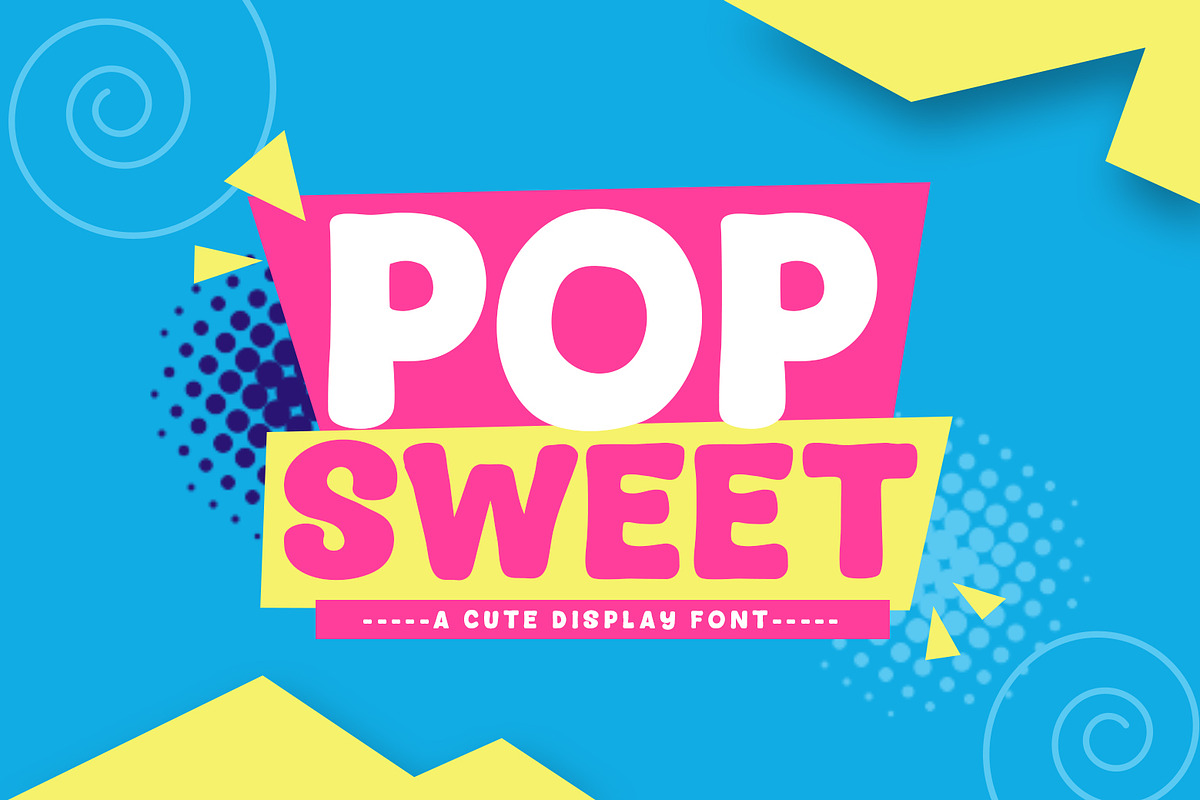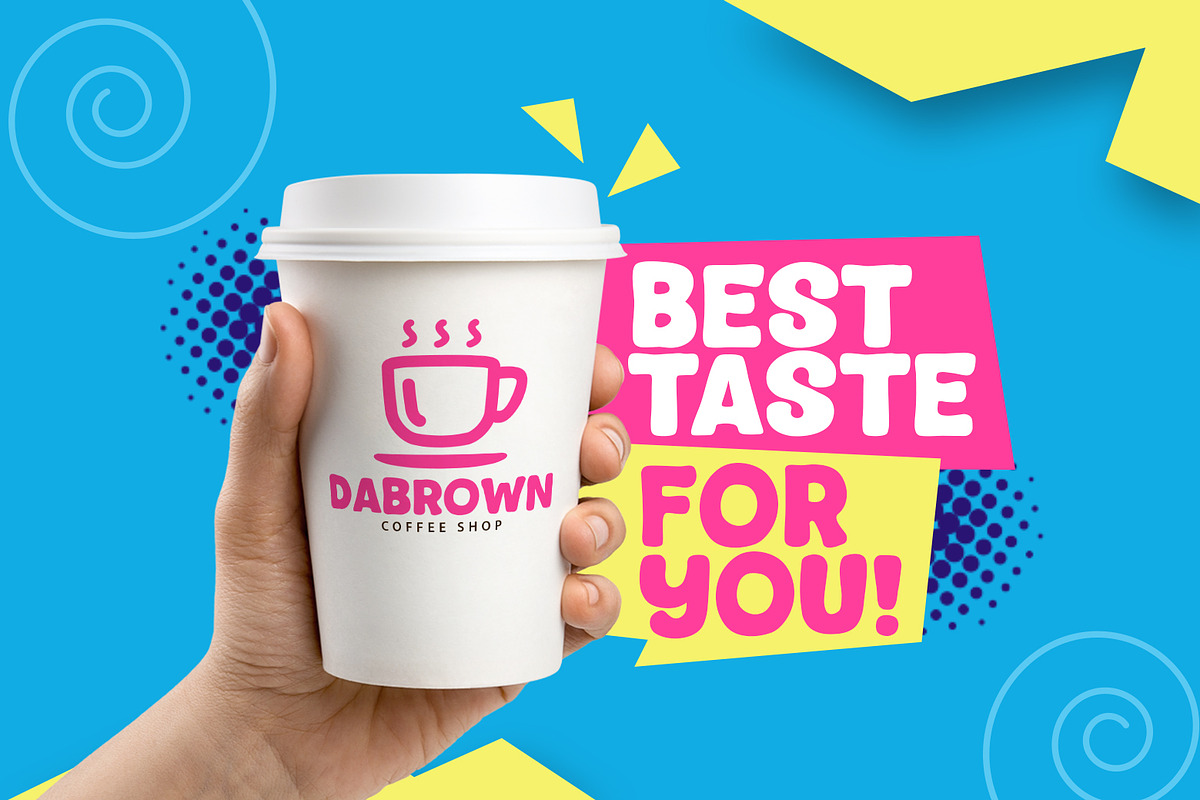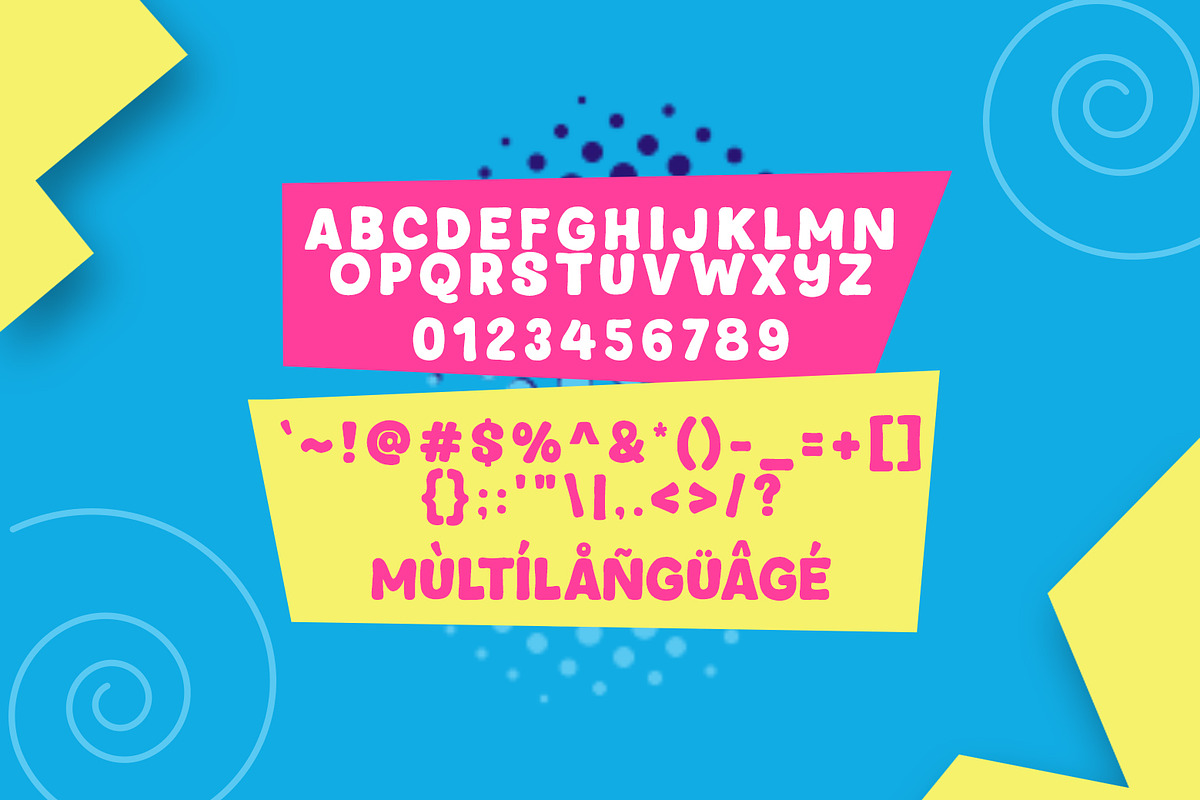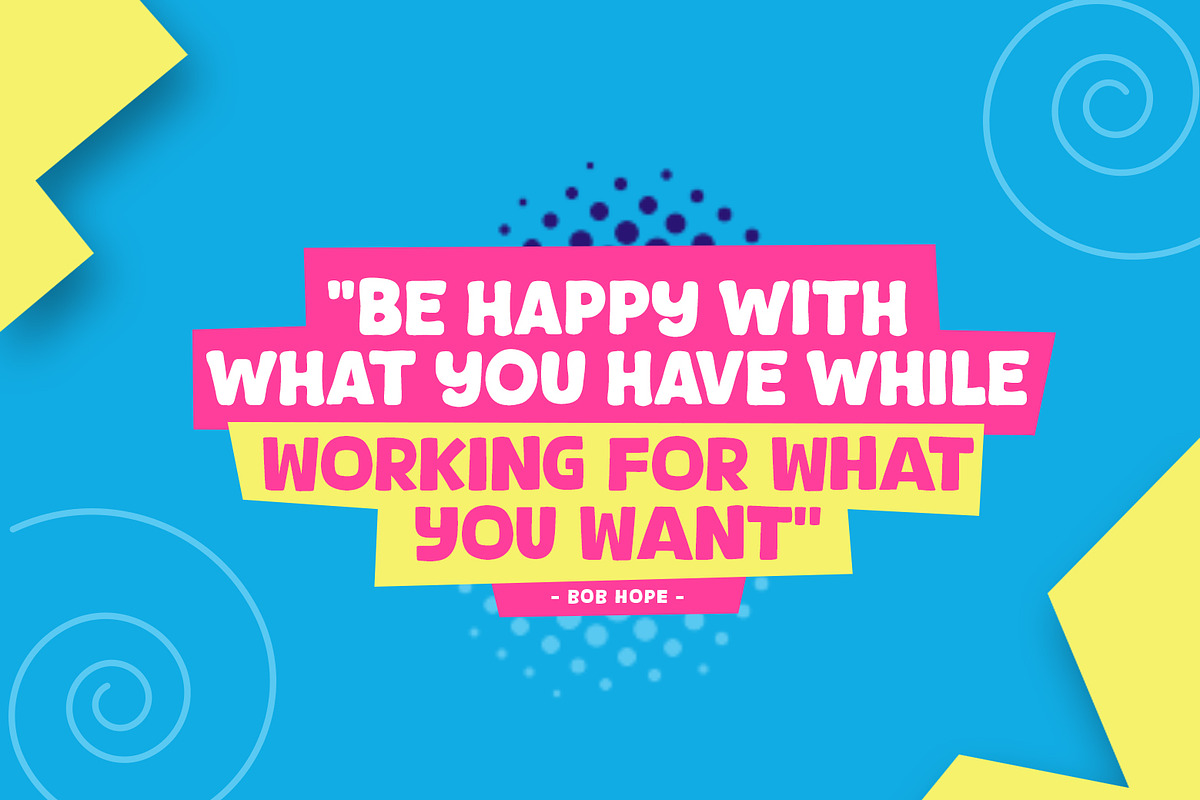
Pop Sweet
Introducing, Pop Sweet font a fun display typeface with cheerful theme for your fun project. Pop Sweet font suitable for logo, branding, greeting card, poster and any design that you create.